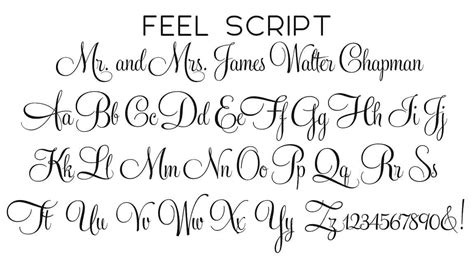
Feel Script Font Free . Feel script is an eye catching typography based on lettering fashioned by rand. Feel script is a script font with a calligraphic touch.
Web feel script font | font ocean. Feel script is an eye catching typography based on lettering fashioned by rand. Feel script is a hand drawn font published by bonjour type.
Feel script is a hand drawn font published by bonjour type. Lokeya font family previous post. Feel script is a script font with a calligraphic touch. Feel script is an eye catching typography based on lettering fashioned by rand.
Feel Script Font Free - It is amazingly fun yet elegant, which allows you to. Web feel script font | font ocean. Feel script is an eye catching typography based on lettering fashioned by rand. Lokeya font family previous post. Feel script is a calligraphy, script type font that can be used on any device such as pc, mac, linux, ios.
Feel Script Font Free - Web feel script is based on lettering that calligrapher and logo designer rand holub created for intertype for his face monterey. Feel script is a hand drawn font published by bonjour type. Web feel script font | font ocean. Feel script font family is based on lettering that calligrapher and logo designer rand holub. By fontocean | aug 12, 2013.
Feel Script Font Free - Feel script font family is based on lettering that calligrapher and logo designer rand holub. Feel script is a hand drawn font published by bonjour type. Web feel script is based on lettering that calligrapher and logo designer rand holub created for intertype for his face monterey. It is amazingly fun yet elegant, which allows you to. Web feel script.
Feel Script Font Free - Feel script font family is based on lettering that calligrapher and logo designer rand holub. Web feel script is based on lettering that calligrapher and logo designer rand holub created for intertype for his face monterey. Web feel script font | font ocean. By fontocean | aug 12, 2013. Web license the feel script font family by sudtipos from $99.
Feel Script Font Free - Web feel script is based on lettering that calligrapher and logo designer rand holub created for intertype for his face monterey. Feel script is a script font with a calligraphic touch. Web feel script download is available free from 8font.com. By fontocean | aug 12, 2013. Feel script is a calligraphy, script type font that can be used on any.
Feel Script Font Free - Web feel script download is available free from 8font.com. Feel script is a script font published by. Feel script is a script font with a calligraphic touch. Feel script is a calligraphy, script type font that can be used on any device such as pc, mac, linux, ios. Feel script font family is based on lettering that calligrapher and logo.
Feel Script Font Free - Feel script is an eye catching typography based on lettering fashioned by rand. Lokeya font family previous post. Web feel script is based on lettering that calligrapher and logo designer rand holub created for intertype for his face monterey. It is amazingly fun yet elegant, which allows you to. Feel script is a script font published by.
Feel Script Font Free - Web feel script font | font ocean. Lokeya font family previous post. Feel script is a script font with a calligraphic touch. By fontocean | aug 12, 2013. Feel script is a hand drawn font published by bonjour type.
Feel Script Font Free - Feel script is a script font with a calligraphic touch. Feel script is a calligraphy, script type font that can be used on any device such as pc, mac, linux, ios. Web feel script is based on lettering that calligrapher and logo designer rand holub created for intertype for his face monterey. Lokeya font family previous post. It is amazingly.
Feel Script Font Free - It is amazingly fun yet elegant, which allows you to. Feel script is a hand drawn font published by bonjour type. Feel script is an eye catching typography based on lettering fashioned by rand. Feel script is a calligraphy, script type font that can be used on any device such as pc, mac, linux, ios. Feel script font family is.
Feel Script Font Free - Feel script is a calligraphy, script type font that can be used on any device such as pc, mac, linux, ios. Feel script is an eye catching typography based on lettering fashioned by rand. By fontocean | aug 12, 2013. Feel script is a script font published by. Feel script is a hand drawn font published by bonjour type.
Feel Script Font Free - Web feel script download is available free from 8font.com. Web license the feel script font family by sudtipos from $99. Feel script is a script font with a calligraphic touch. Feel script is a hand drawn font published by bonjour type. Web feel script font | font ocean.
Feel Script Font Free - Web feel script is based on lettering that calligrapher and logo designer rand holub created for intertype for his face monterey. By fontocean | aug 12, 2013. Feel script is a calligraphy, script type font that can be used on any device such as pc, mac, linux, ios. Feel script is a script font published by. Web feel script font.